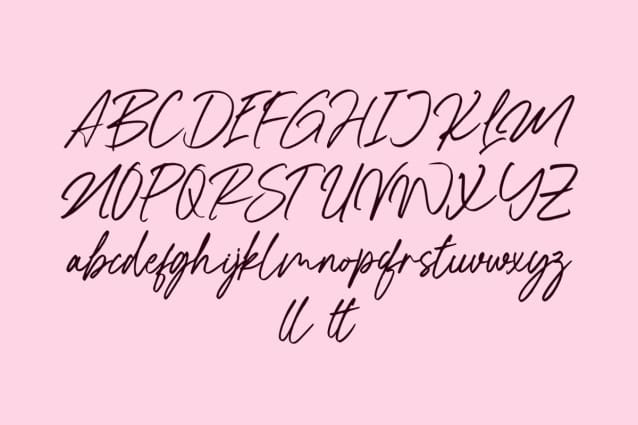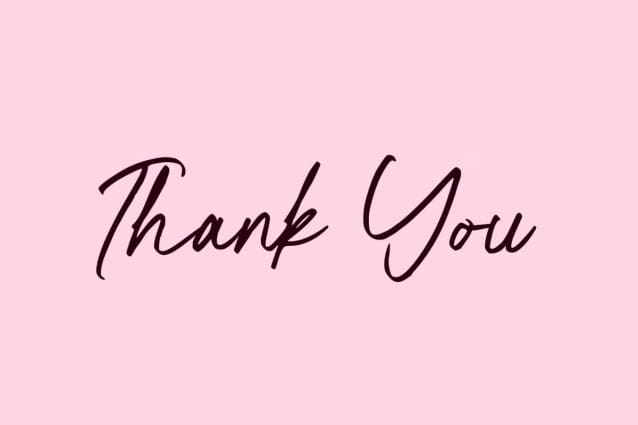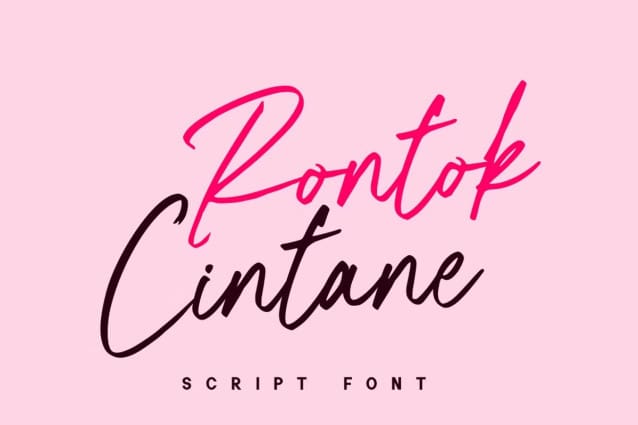
Rontok Cintane Font
Rontok Cintane Font is a simple and friendly handwritten font. Its natural and unique style makes it incredibly fitting to a large pool of designs. The only limit is your imagination!